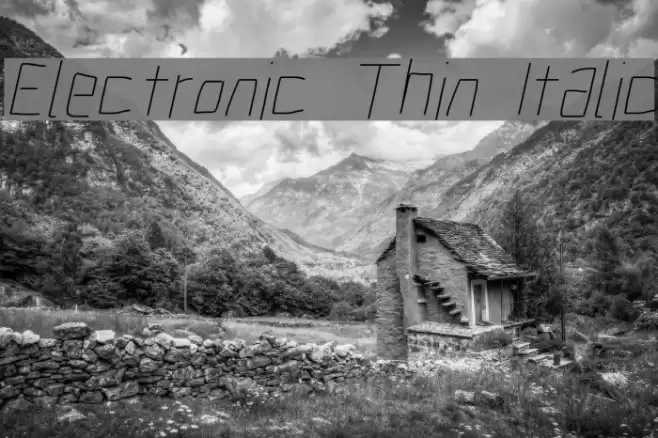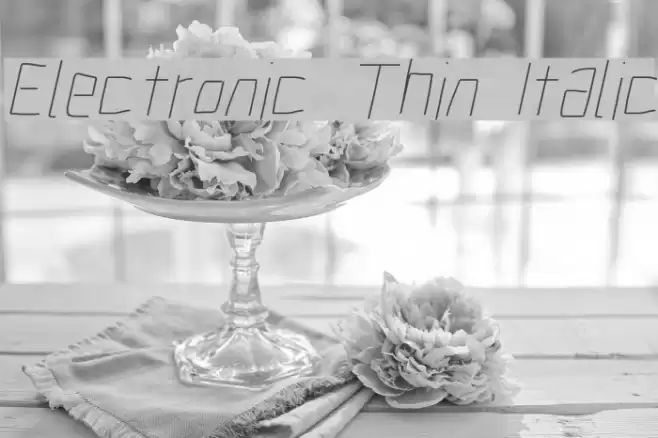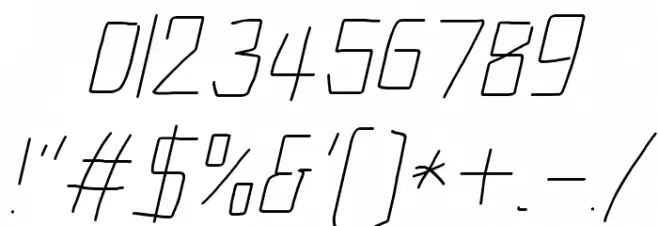
Electronic Thin Italic Font
Electronic Thin Italic Description
This font features a sleek, futuristic design with thin, angular lines that give it a modern and electronic feel. The italicized style adds a dynamic and forward-leaning appearance, enhancing its contemporary aesthetic. Each character is crafted with precision, maintaining a consistent stroke width that contributes to its minimalistic yet sophisticated look. The uppercase and lowercase letters are distinct, with a geometric influence that is evident in the sharp edges and clean lines. Numbers and special characters are designed to match the overall theme, ensuring uniformity across all glyphs.
A thin, italicized font with a futuristic and electronic design from Uncategorized fonts.
- Proposed Projects: Ideal for tech-related branding, digital interfaces, modern posters, and futuristic-themed projects.
- Weight: Light
- Overall Style: Futuristic
- Use Case: Headlines, Logos, Digital Interfaces